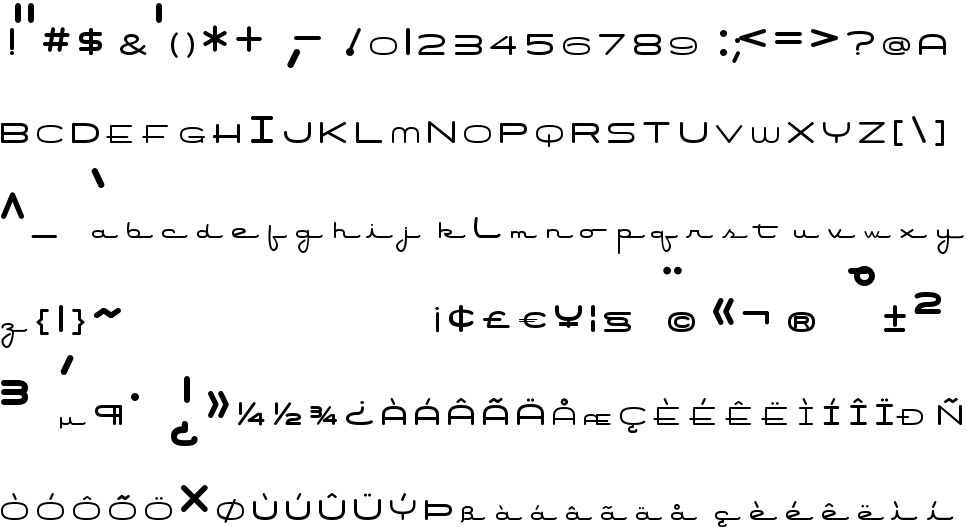
Air Conditioner Free Font . The air conditioner font has been downloaded 16,856 times. 558,055 downloads (7 yesterday) 5 comments free for personal use. The air conditioner font brings firmer and bolder letters and requires caution in the creation of art in order not to lose readability, making the text. Air conditioner font is a fancy, retro font designed by font diner. Air conditioner font is available for free download for noncommercial, personal projects. Download and install the air conditioner font by font diner. Air conditioner à € by font diner. Download air conditioner font · free for personal use · keep it cool this sizzlin' summer with your very own air conditioner!.
Download air conditioner font · free for personal use · keep it cool this sizzlin' summer with your very own air conditioner!. 558,055 downloads (7 yesterday) 5 comments free for personal use. Air conditioner font is available for free download for noncommercial, personal projects. Download and install the air conditioner font by font diner. Air conditioner à € by font diner. The air conditioner font brings firmer and bolder letters and requires caution in the creation of art in order not to lose readability, making the text. Air conditioner font is a fancy, retro font designed by font diner. The air conditioner font has been downloaded 16,856 times.
Air Conditioner Font
Air Conditioner Free Font The air conditioner font has been downloaded 16,856 times. Air conditioner font is available for free download for noncommercial, personal projects. Air conditioner à € by font diner. Download and install the air conditioner font by font diner. Download air conditioner font · free for personal use · keep it cool this sizzlin' summer with your very own air conditioner!. 558,055 downloads (7 yesterday) 5 comments free for personal use. The air conditioner font has been downloaded 16,856 times. The air conditioner font brings firmer and bolder letters and requires caution in the creation of art in order not to lose readability, making the text. Air conditioner font is a fancy, retro font designed by font diner.
Air Conditioner Font Air Conditioner Free Font 558,055 downloads (7 yesterday) 5 comments free for personal use. Air conditioner font is a fancy, retro font designed by font diner. Download air conditioner font · free for personal use · keep it cool this sizzlin' summer with your very own air conditioner!. The air conditioner font brings firmer and bolder letters and requires caution in the creation of. Air Conditioner Free Font.
Download free Air Conditioner Regular font Air Conditioner Free Font Air conditioner font is available for free download for noncommercial, personal projects. Air conditioner à € by font diner. 558,055 downloads (7 yesterday) 5 comments free for personal use. The air conditioner font brings firmer and bolder letters and requires caution in the creation of art in order not to lose readability, making the text. Download and install the air. Air Conditioner Free Font.
Air Conditioner by Font Diner at Air conditioner, Free Air Conditioner Free Font 558,055 downloads (7 yesterday) 5 comments free for personal use. Air conditioner font is available for free download for noncommercial, personal projects. The air conditioner font has been downloaded 16,856 times. Air conditioner font is a fancy, retro font designed by font diner. Download and install the air conditioner font by font diner. Download air conditioner font · free for. Air Conditioner Free Font.
Air Conditioner Font · 1001 Fonts Air Conditioner Free Font Download air conditioner font · free for personal use · keep it cool this sizzlin' summer with your very own air conditioner!. Air conditioner font is available for free download for noncommercial, personal projects. Air conditioner font is a fancy, retro font designed by font diner. Air conditioner à € by font diner. Download and install the air conditioner font. Air Conditioner Free Font.
Identifont Air Conditioner Free Font Air conditioner font is a fancy, retro font designed by font diner. Download and install the air conditioner font by font diner. Download air conditioner font · free for personal use · keep it cool this sizzlin' summer with your very own air conditioner!. Air conditioner à € by font diner. The air conditioner font has been downloaded 16,856 times.. Air Conditioner Free Font.
Air Conditioner by Font Diner at Sign lettering fonts Air Conditioner Free Font The air conditioner font has been downloaded 16,856 times. Download and install the air conditioner font by font diner. Air conditioner font is available for free download for noncommercial, personal projects. Download air conditioner font · free for personal use · keep it cool this sizzlin' summer with your very own air conditioner!. Air conditioner à € by font diner.. Air Conditioner Free Font.
Air Conditioner Font 1001 Free Fonts Air Conditioner Free Font Air conditioner font is a fancy, retro font designed by font diner. Air conditioner font is available for free download for noncommercial, personal projects. The air conditioner font brings firmer and bolder letters and requires caution in the creation of art in order not to lose readability, making the text. Download air conditioner font · free for personal use ·. Air Conditioner Free Font.
Air Conditioner Font Air Conditioner Free Font 558,055 downloads (7 yesterday) 5 comments free for personal use. The air conditioner font brings firmer and bolder letters and requires caution in the creation of art in order not to lose readability, making the text. Download air conditioner font · free for personal use · keep it cool this sizzlin' summer with your very own air conditioner!. Download and. Air Conditioner Free Font.
Air Conditioner Font Download Fonts4Free Air Conditioner Free Font Download and install the air conditioner font by font diner. Air conditioner à € by font diner. The air conditioner font brings firmer and bolder letters and requires caution in the creation of art in order not to lose readability, making the text. The air conditioner font has been downloaded 16,856 times. 558,055 downloads (7 yesterday) 5 comments free for. Air Conditioner Free Font.